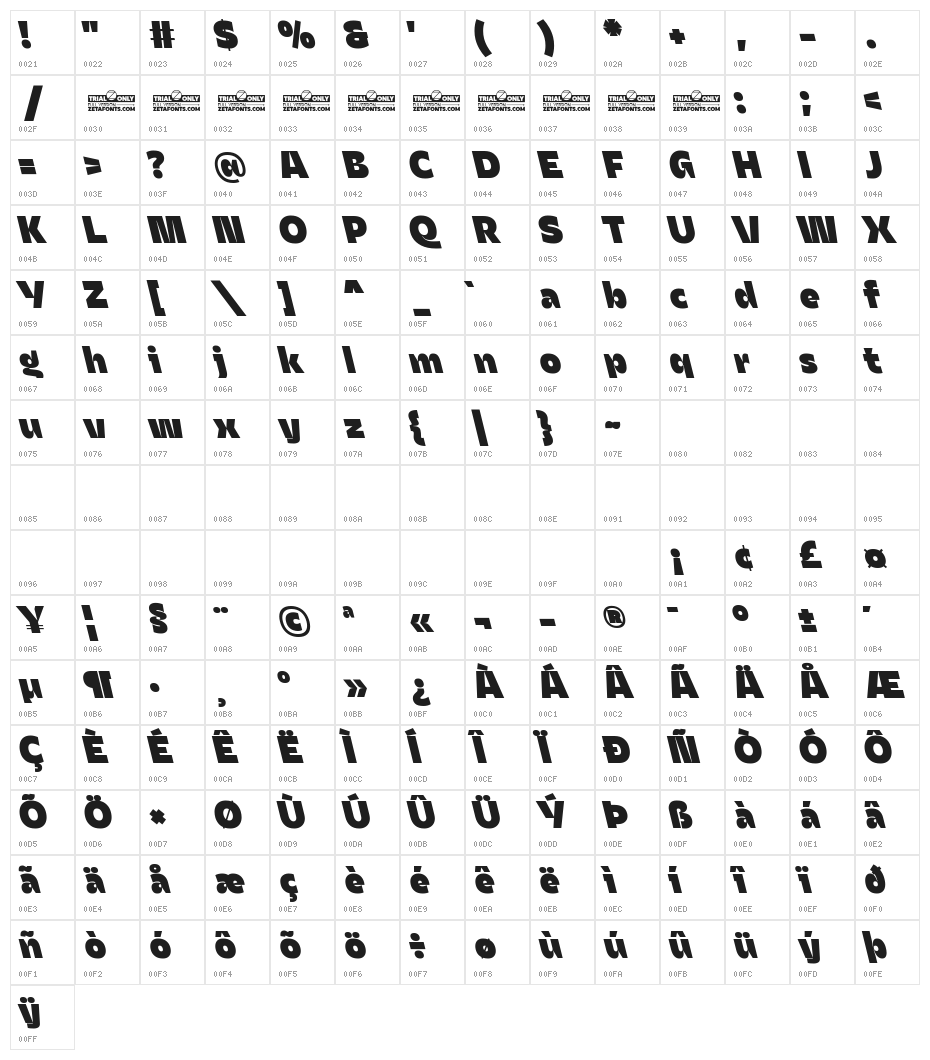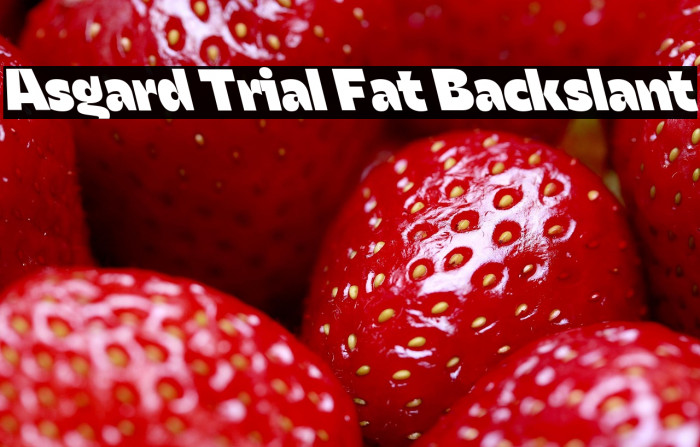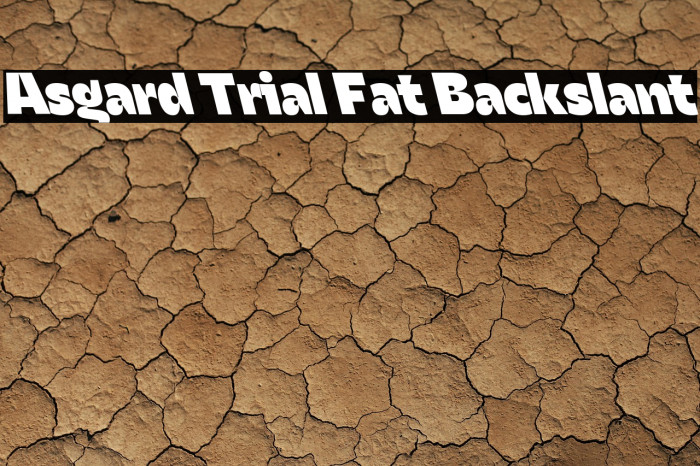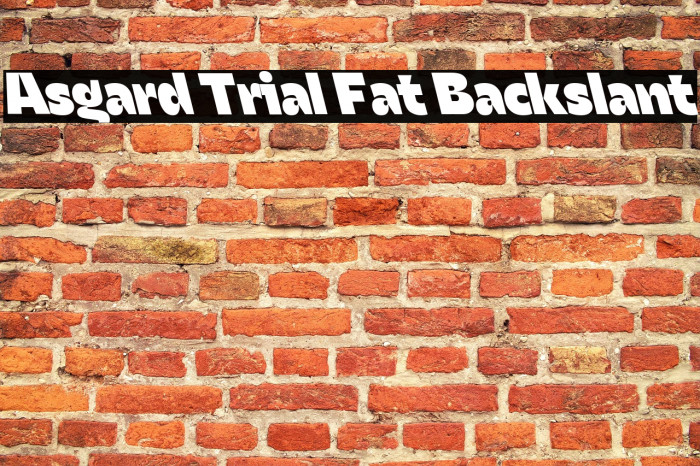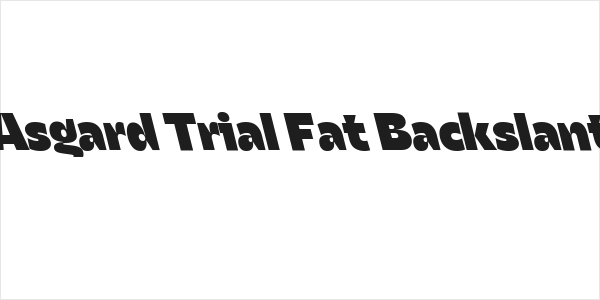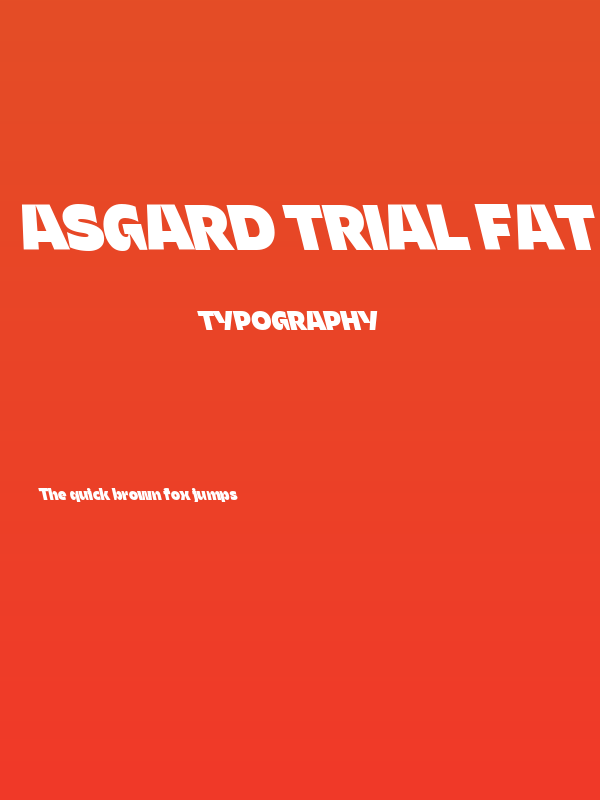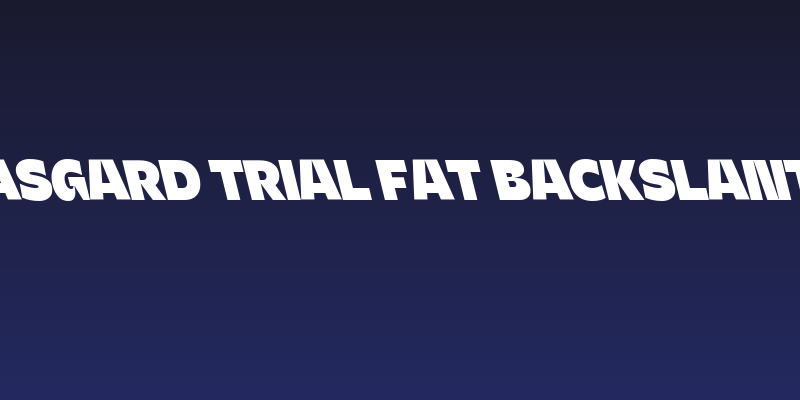
Asgard Trial Fat Backslant Font
Asgard Trial Fat Backslant Description
This font features a bold and dynamic style with a distinct backslant, giving it a sense of movement and energy. The characters are robust and wide, with a strong presence that commands attention. The uppercase and lowercase letters maintain a consistent weight, contributing to a cohesive and impactful appearance. The numerals and special characters follow the same bold aesthetic, ensuring uniformity across all text elements. This font's unique style makes it ideal for projects that require a strong visual impact.
| Proposed Projects | Ideal for posters, headlines, branding, and any design that requires a bold statement. |